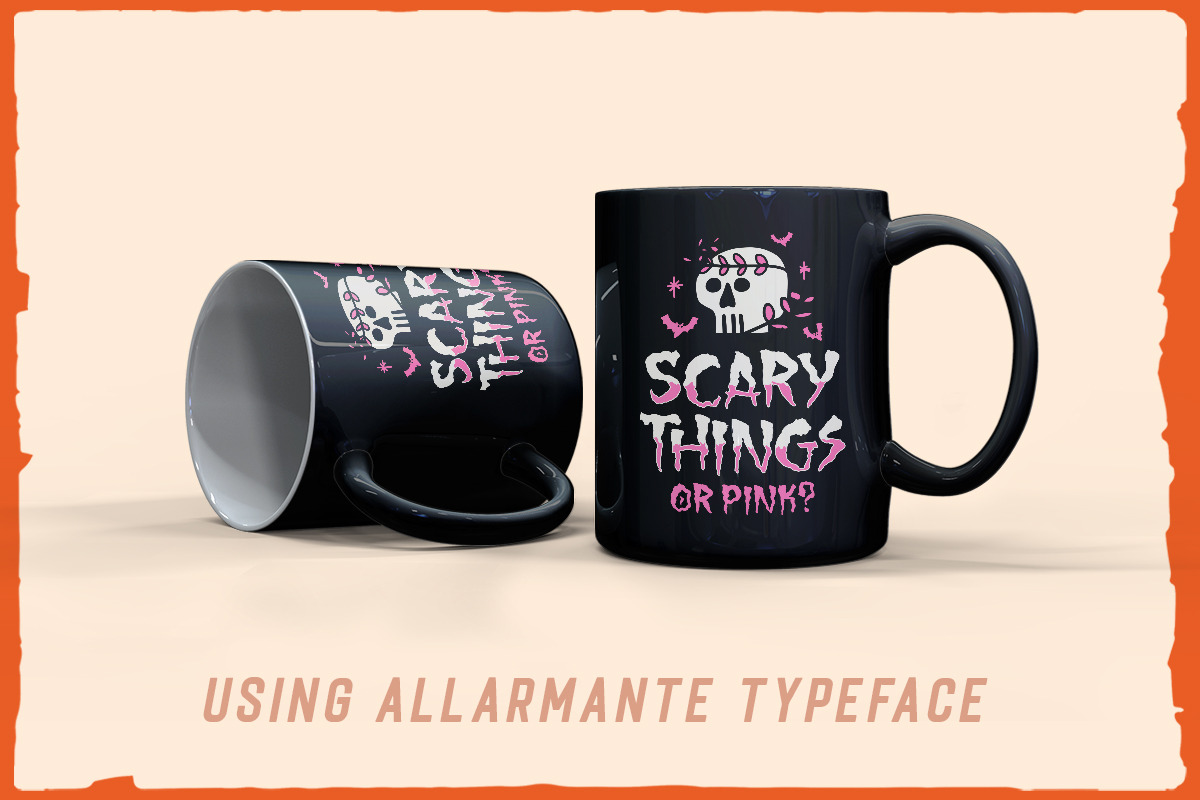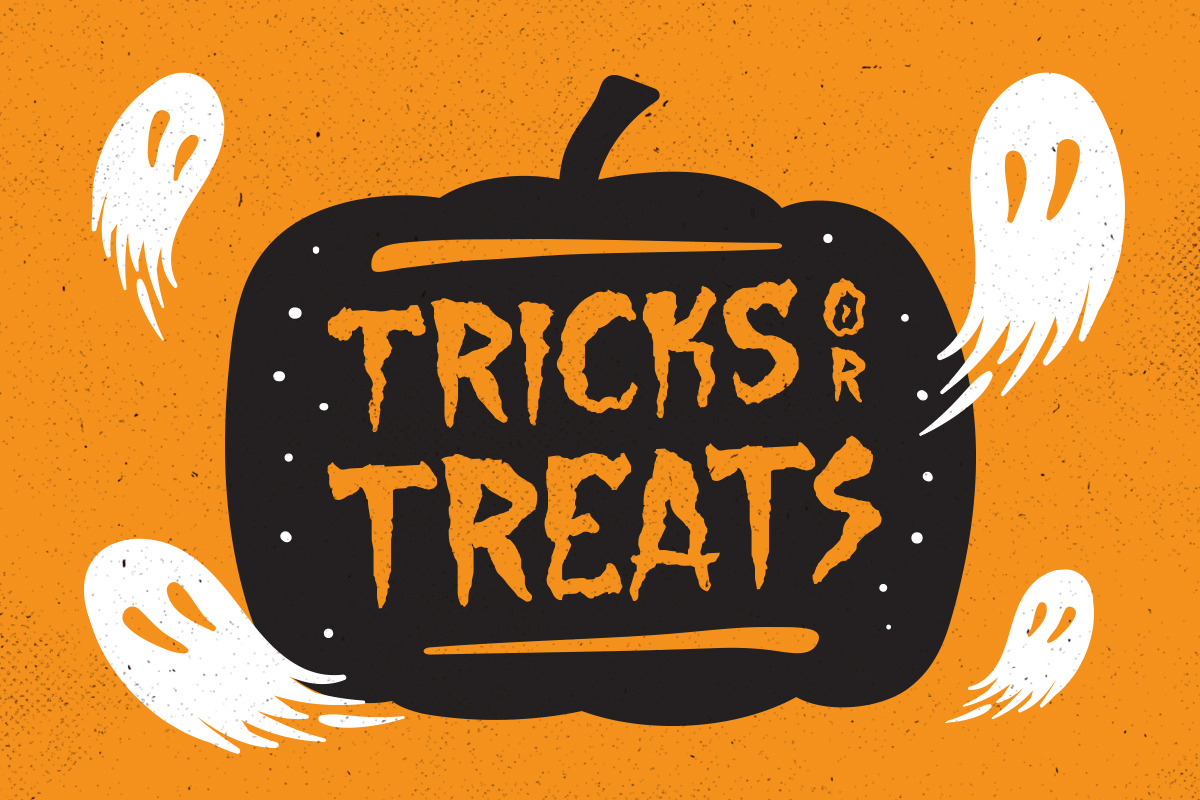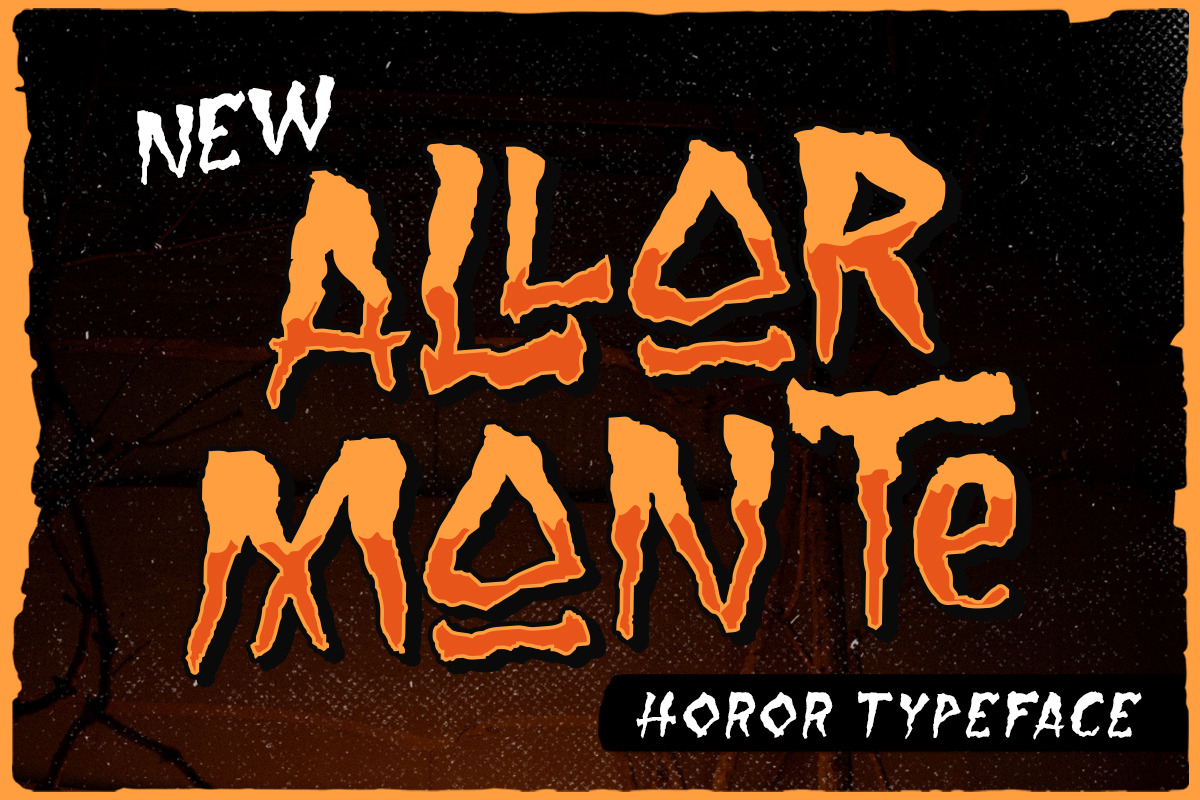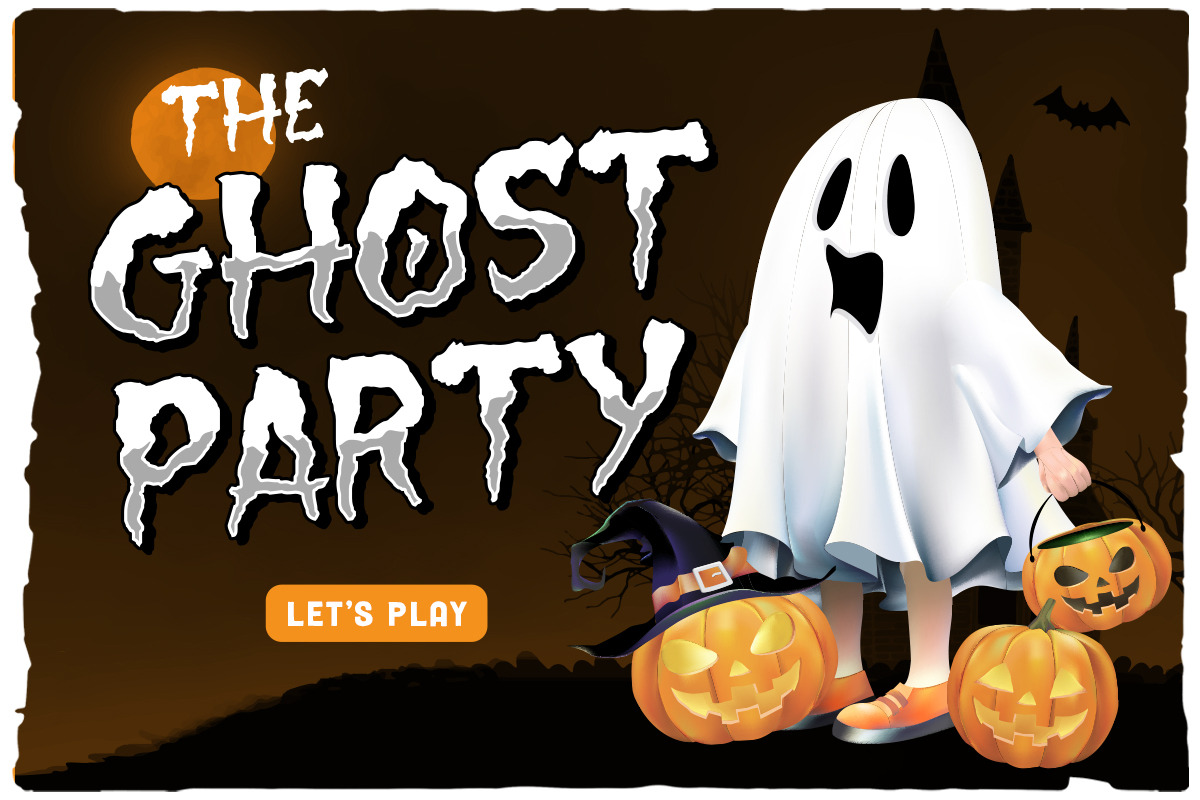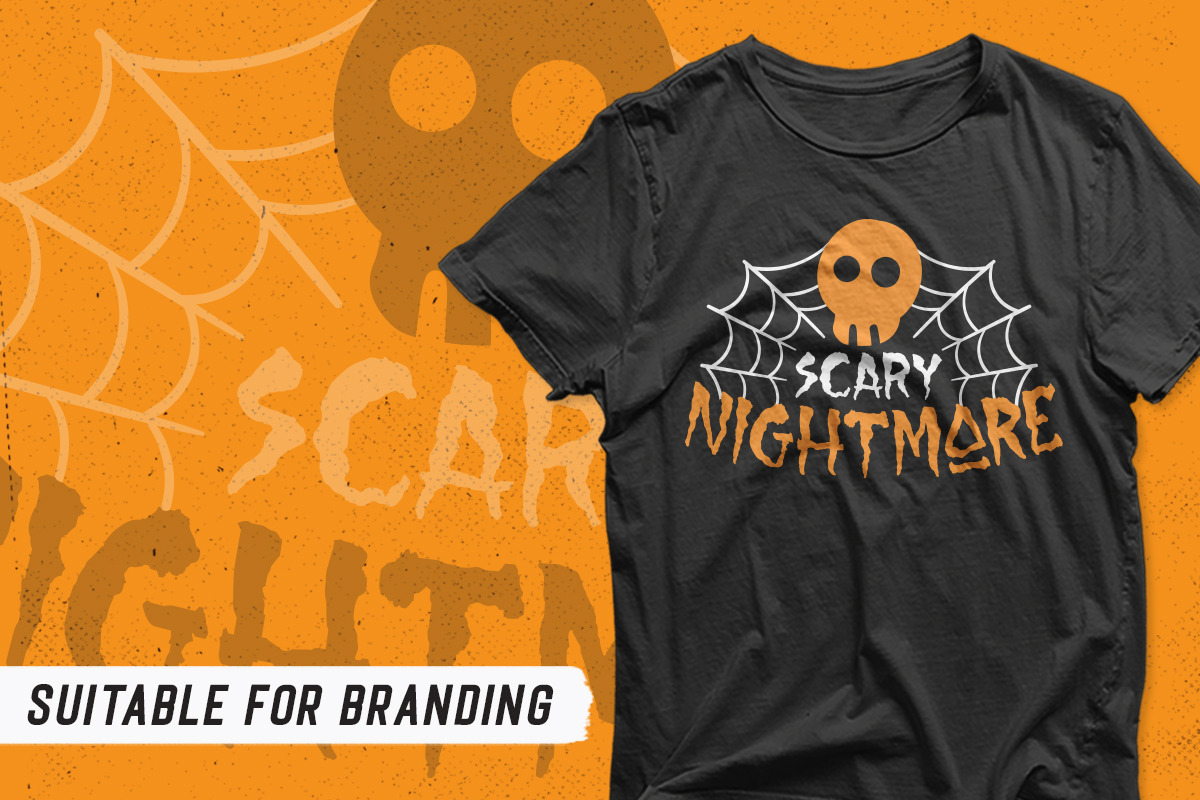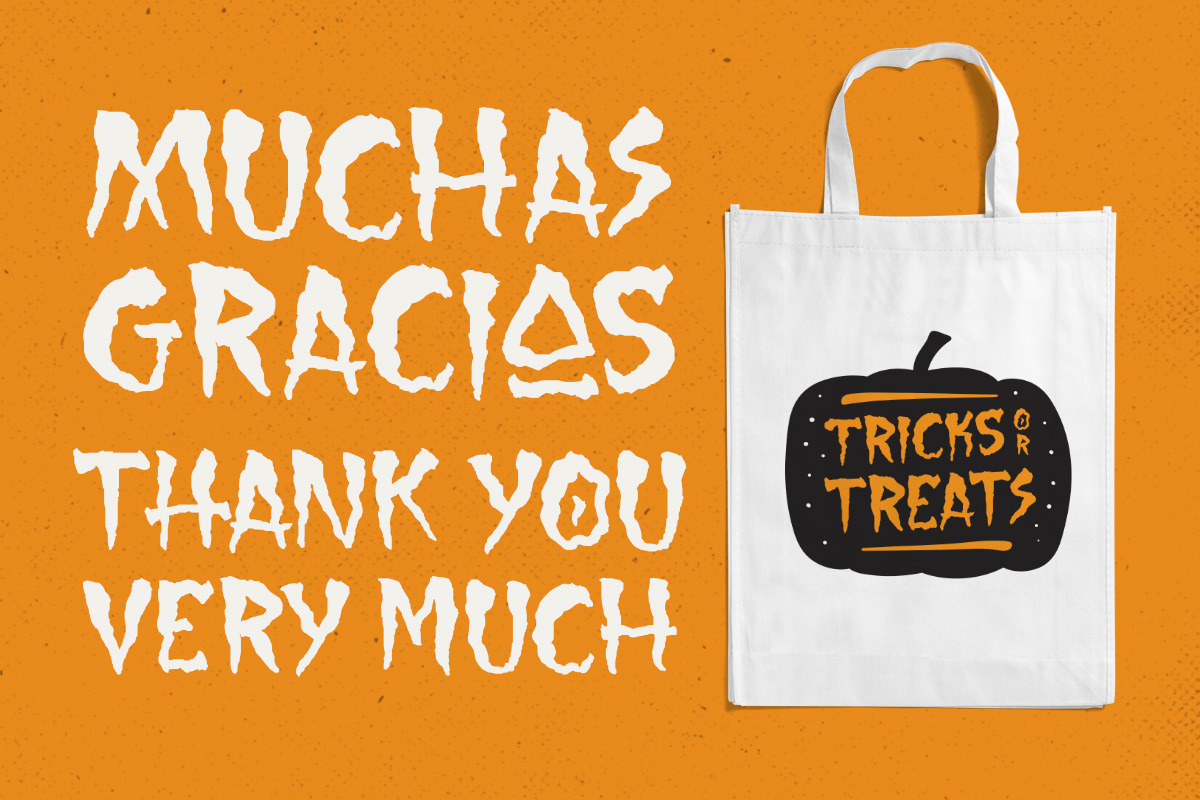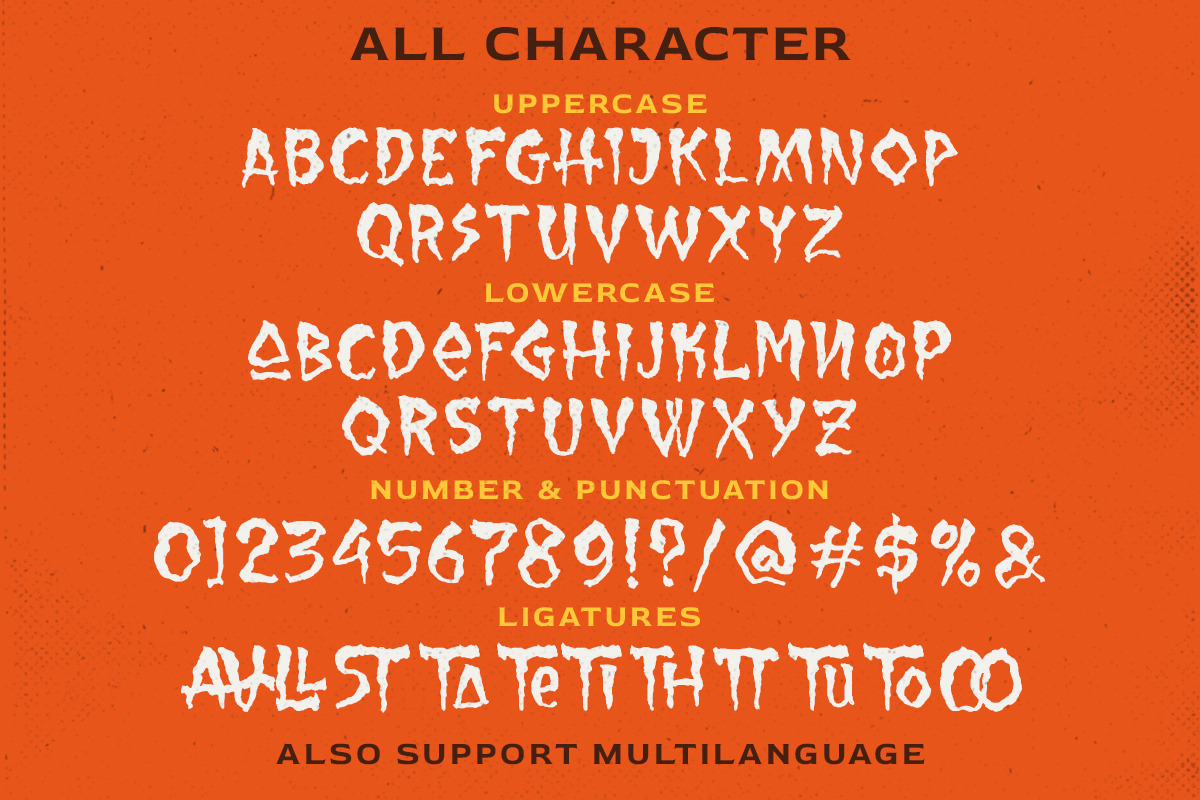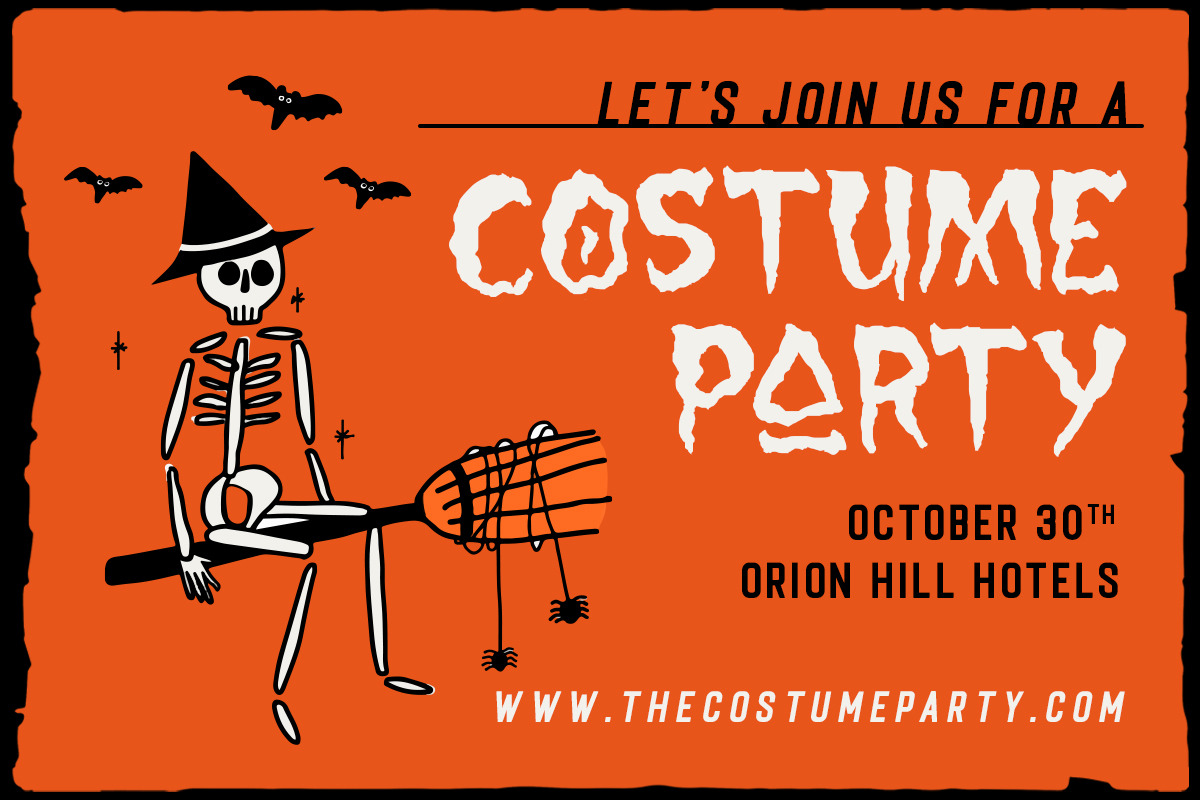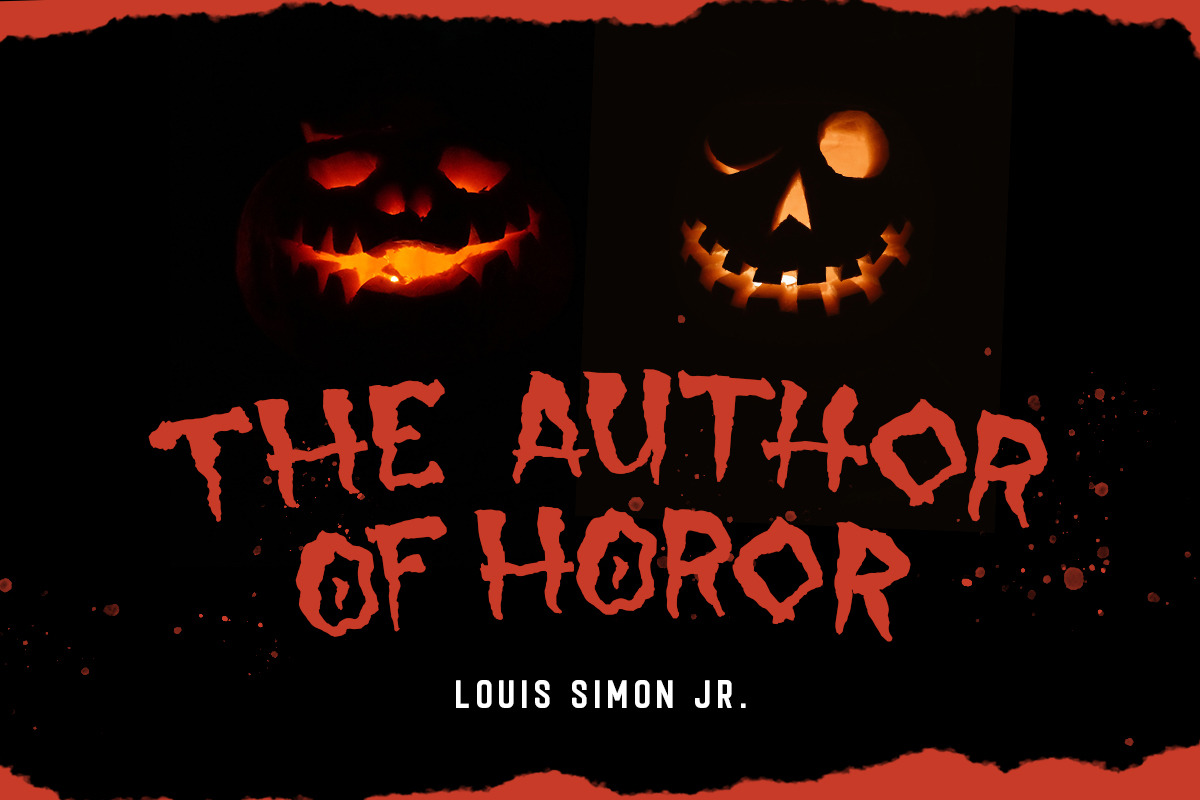
Allarmante - Horror Font
Inspired by Halloween theme. The authentic fon tto give you playful feel but scary vibes too. This font perfectly made to be applied especially in logo, and the other various formal forms such as invitations, labels, logos, magazines, books, packaging, stationery, novels, labels or any type of advertising purpose.